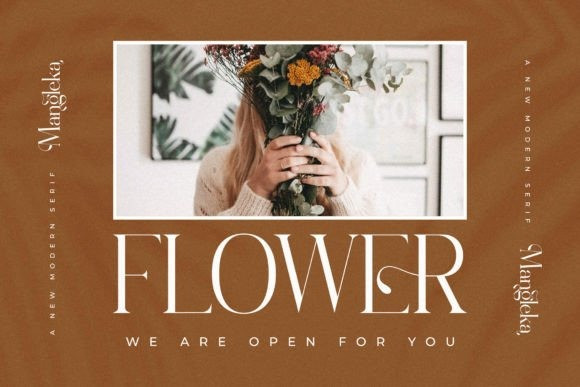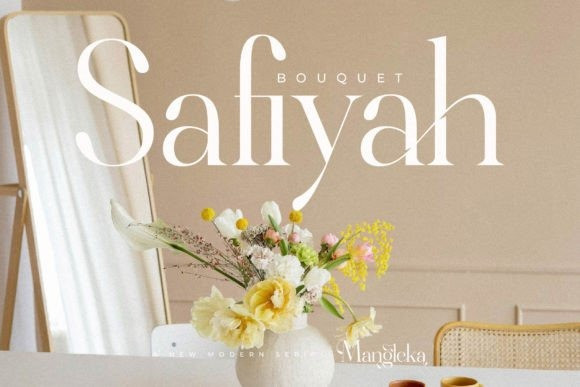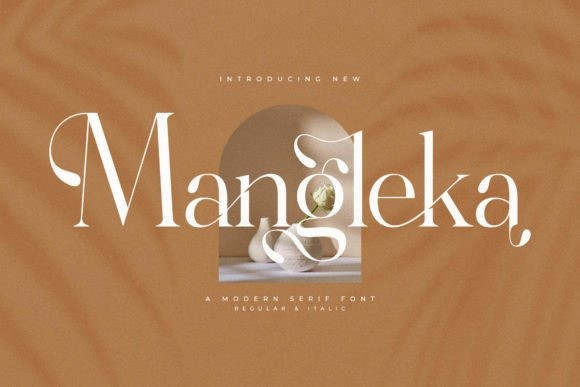
Mangleka Font
Mangleka Font, created by Storytype, A serif modern and classic typeface that has own unique style & modern look. This typeface is perfect for an elegant & luxury logo, book or movie title design, fashion brand, magazine, clothes, lettering, quotes, and so much more.